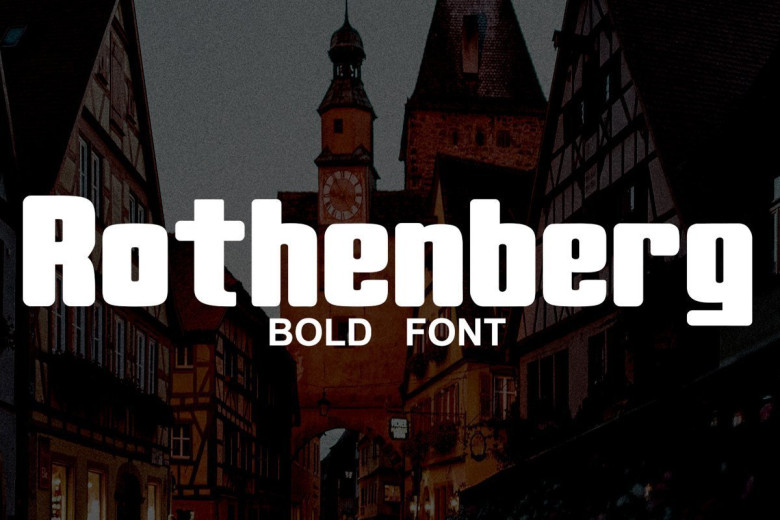
Rothenberg Bold Sans Serif Font
Rothenberg Bold Sans Font is a very cool typeface for headline designs with a bold and bold theme. With a strong display and clean nodes make text in the design become more character and great. Inspired by headline trends in a poster or magazine today. So that with a firm and a very modern style makes your design better!
This font is formed from the headline display font of a very careful title. Suitable for all graphic design projects, prints, logos, posters, t-shirts, packaging, website, ticket and applies to several types of graphic design. Especially for the use of a title!